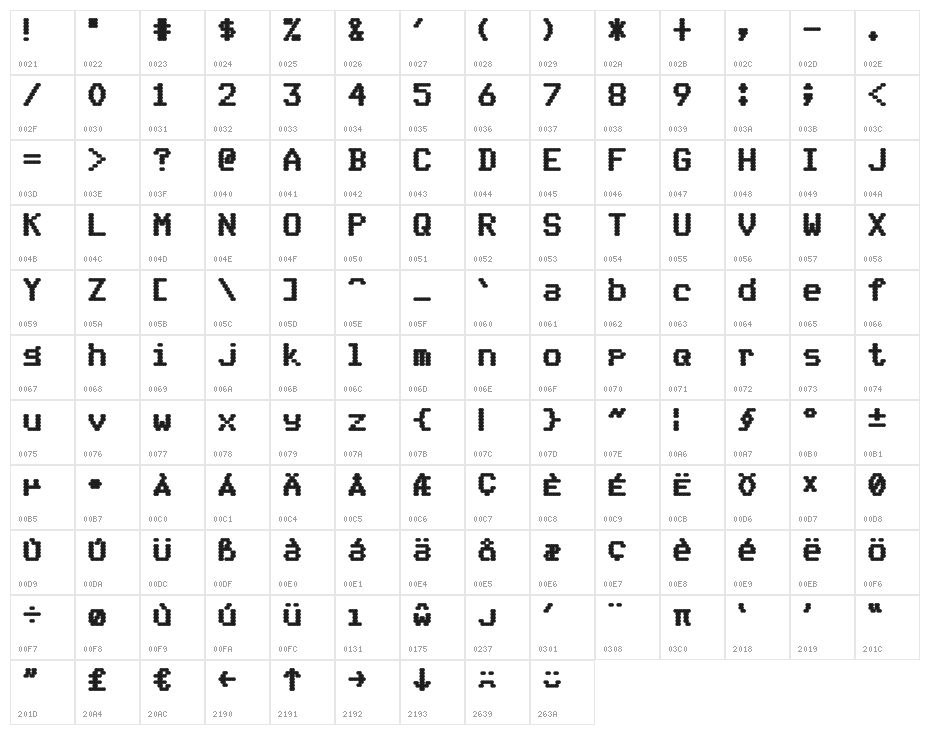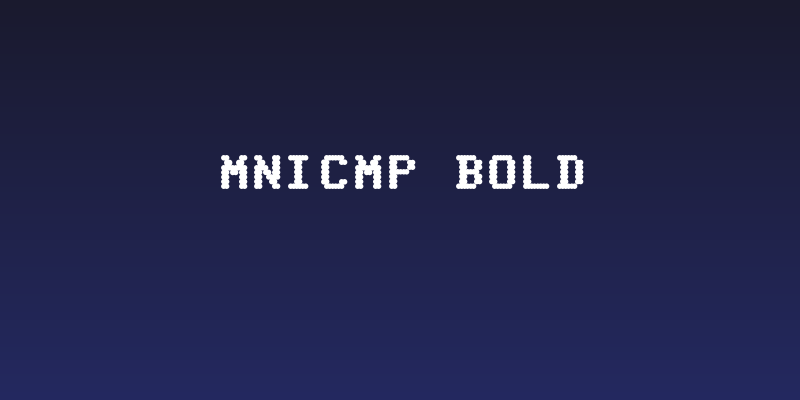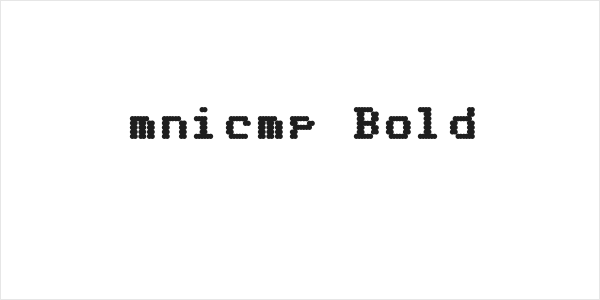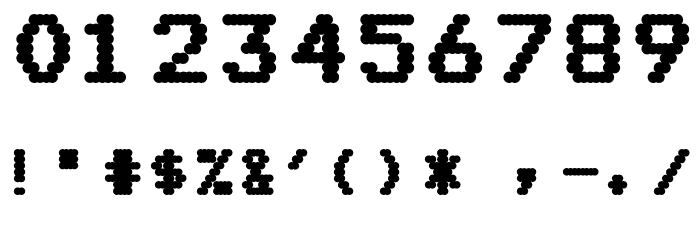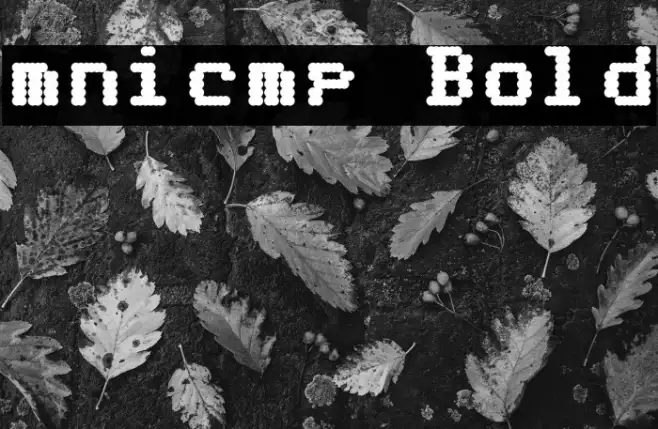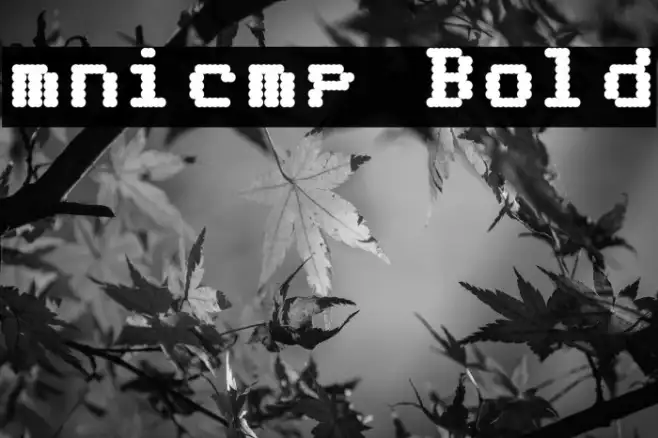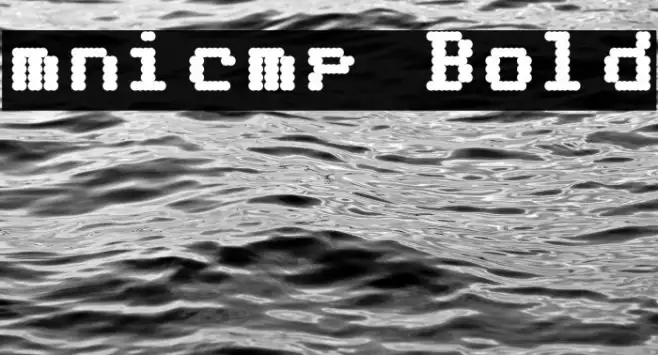
mnicmp Bold Font
mnicmp Bold Description
This font features a unique, playful design composed of small circular dots forming each character. The letters and numbers are bold and evenly spaced, creating a cohesive and visually striking appearance. The style is reminiscent of digital or pixelated fonts, yet with a softer, more rounded aesthetic due to the circular elements. This font stands out with its decorative and modern look, making it suitable for creative and eye-catching designs. The characters maintain a consistent weight and width, ensuring readability while adding a distinct visual flair.
| Proposed Projects | Ideal for digital art projects, children's books, playful branding, and creative posters. |